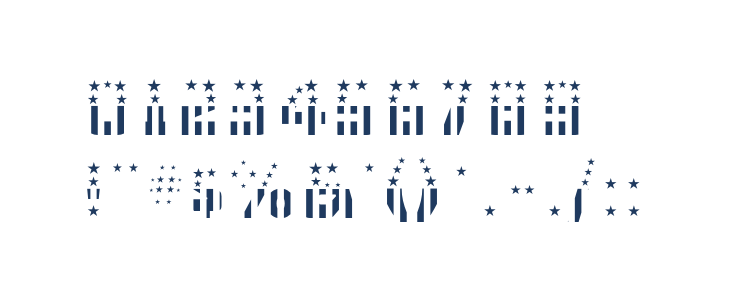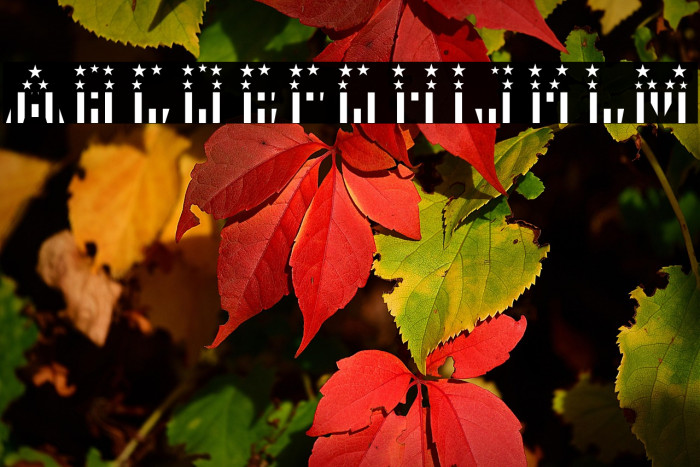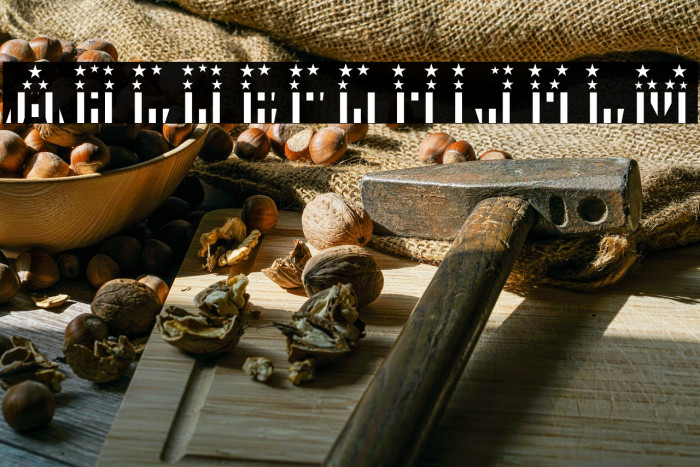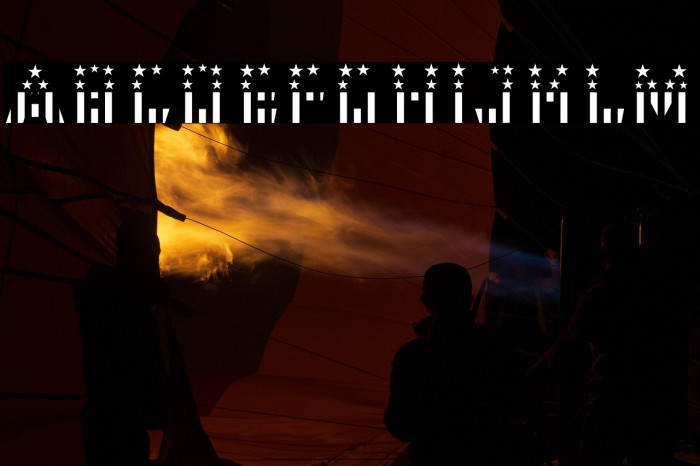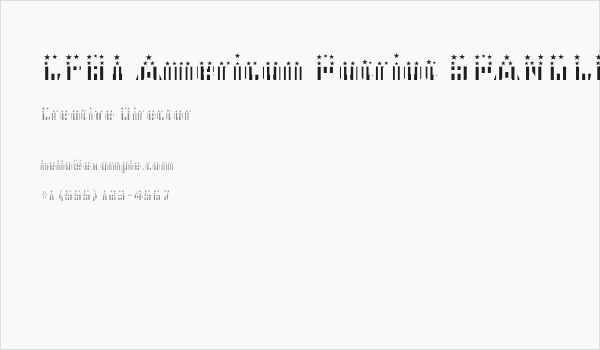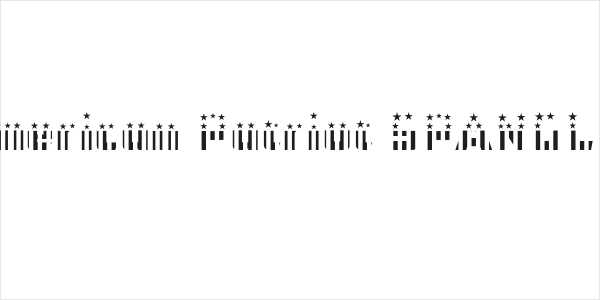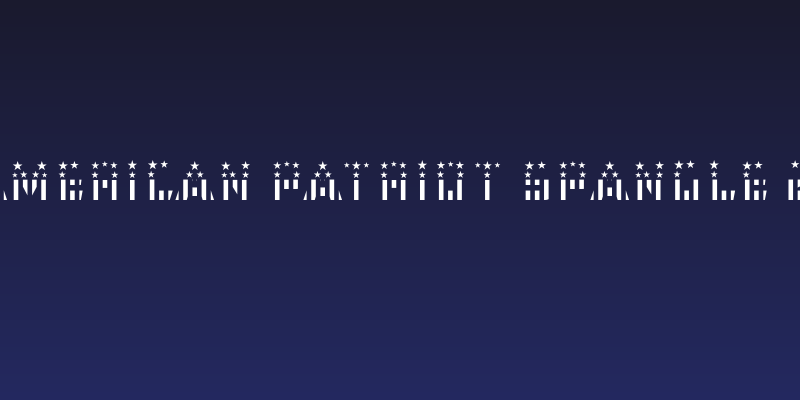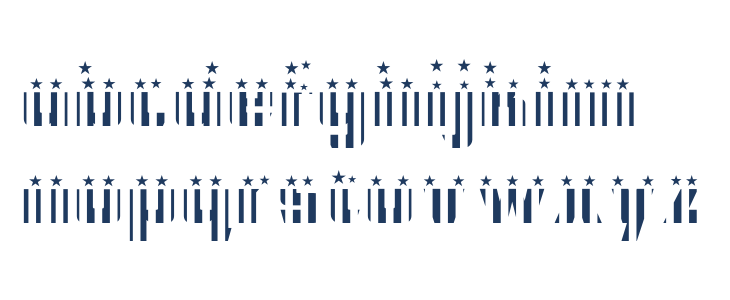
CFB1 American Patriot SPANGLE 2 Bold Font
CFB1 American Patriot SPANGLE 2 Bold Description
This font features a bold and patriotic design, incorporating stars and stripes into each character. The uppercase and lowercase letters, as well as numbers and special characters, are adorned with stars, giving it a distinctly American theme. The characters are bold and have a stencil-like appearance, making them stand out with a strong visual impact. The use of stars adds a decorative element, making it suitable for themed projects. The font's style is both eye-catching and thematic, perfect for conveying a sense of patriotism and celebration.
| Proposed Projects | Ideal for patriotic posters, event banners, themed merchandise, and celebratory invitations. |